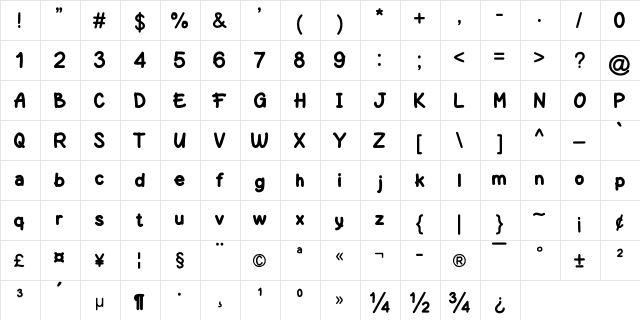
Netigen Regular Regular
Design Context for Netigen Regular Typeface
Netigen Regular offers clean, dependable letterforms without strong stylistic allegiance, making it a practical choice for designers who need flexibility.